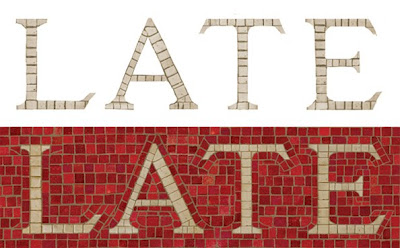
Louise Fili Tribute to New York
For decades the School of Visual Arts in New York City has been famous for the unstinting excellence of its promotional efforts. The most visible of these works have been subway posters notable for their blend of memorable copywriting and arresting imagery. The latest example is an eye-catching simulation of the mosaics that are virtually synonymous with the subway and thus with the city itself.
The poster is the work of Louise Fili Ltd. Louise Fili not only designed it but also wrote its copy. The complex production of the poster was carried out by John Passafiume and Dana Tanamachi at Louise Fili Ltd. Anthony P. Rhodes was the creative director and Michael J. Walsh the art director.